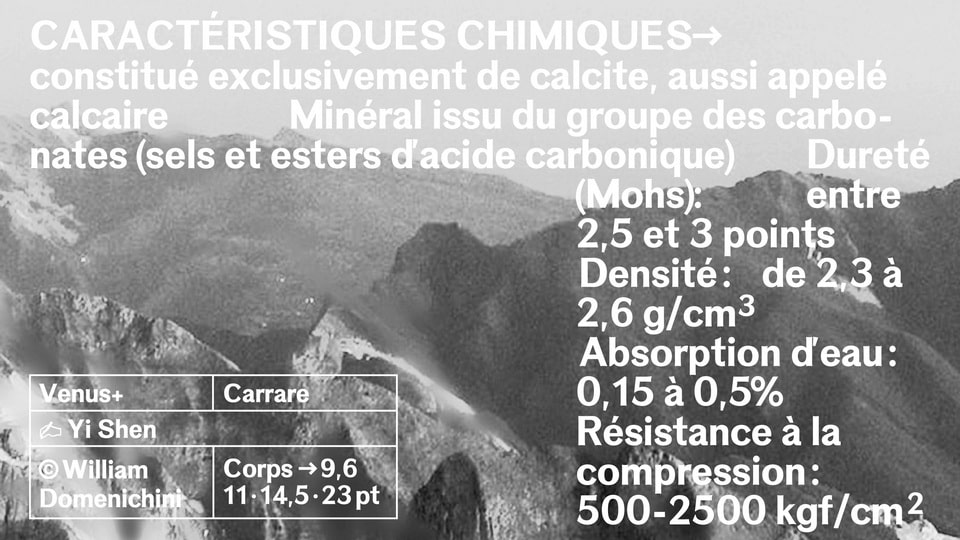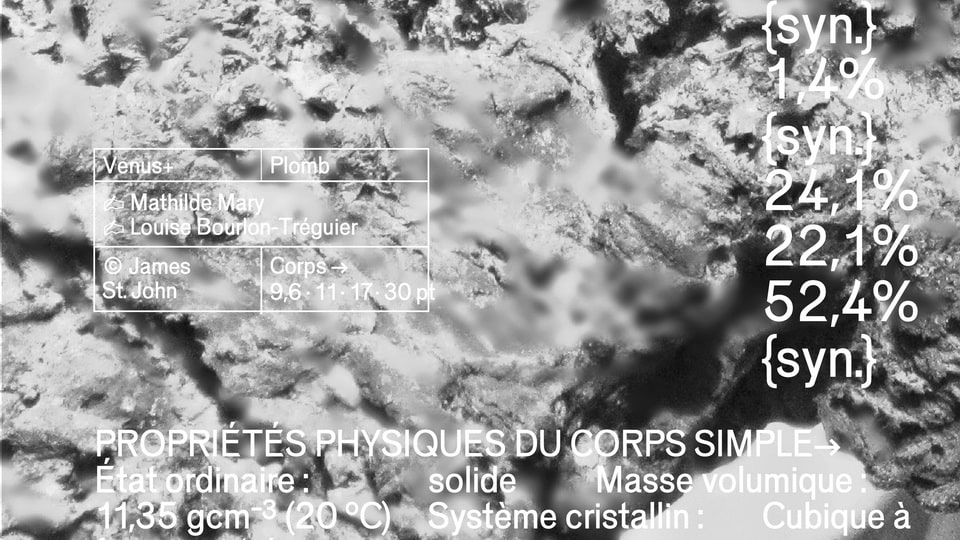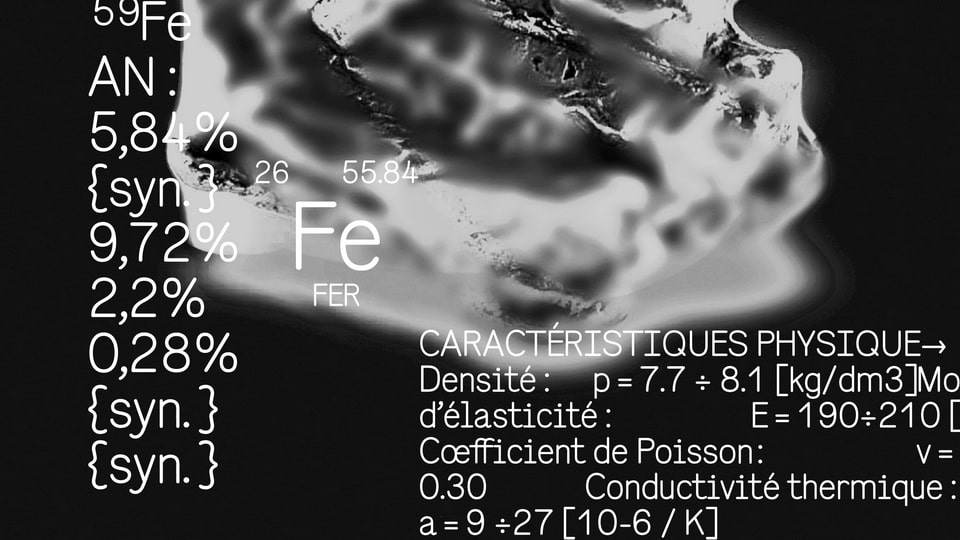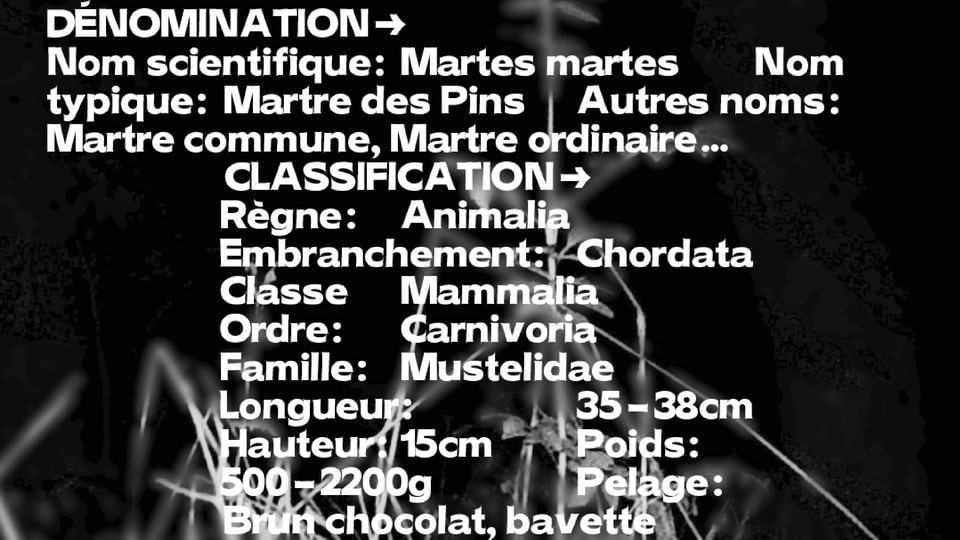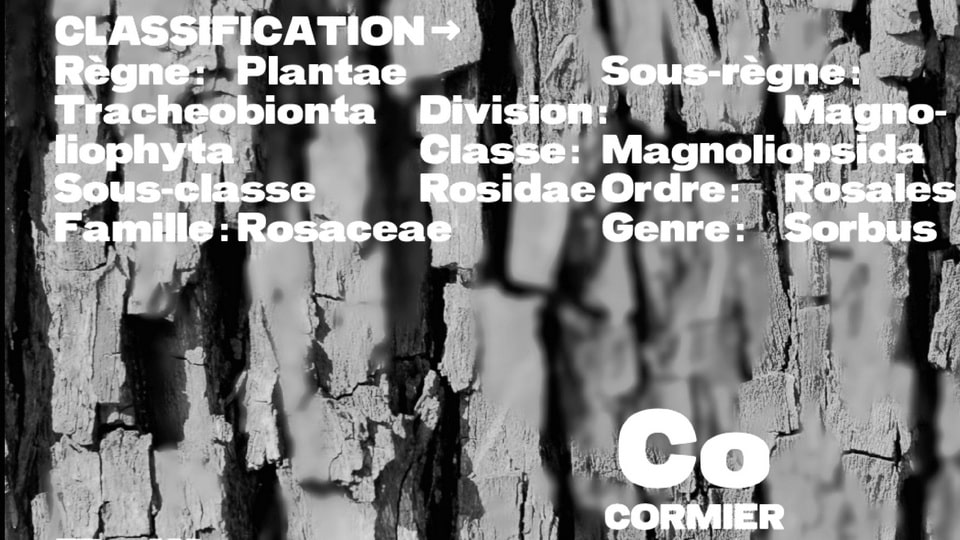
Venus+ is a sans serif font family, each weight is inspired by forms induced by a technical process in use in the first half of the 20th century: The typewriter, the printing press for lead or wood, lapidary engraving, the painted letter . With the invention of photocomposition in the 1950s, then DTP, the design of letters was freed from the material constraints of character production.
Designed from the Venus, published by the Bauer Type foundry from 1907, the Venus+ family pays homage to the materials and techniques that have shaped typographic forms.